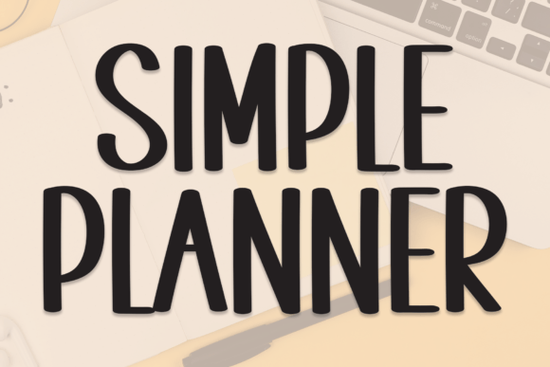
If you've been looking for a Simple Planner Font that handles a wide range of design projects without feeling stiff or overly decorative, this handwritten typeface from Creative Fabrica is worth a close look. It has a relaxed, casual feel that works naturally in planners, journals, social media posts, and print-on-demand products.
As someone who tests and uses handwritten fonts regularly, I've found that the most useful ones aren't always the boldest or most detailed. A clean, easygoing script that reads well at different sizes often ends up being the font you reach for most. Simple Planner fits that role nicely.
What Kind of Font Is Simple Planner Exactly?
Simple Planner is a casual handwritten font with loose, natural letterforms. It doesn't try to mimic perfect calligraphy or look overly polished. Instead, it has a friendly, approachable quality like something you'd jot down in a notebook. This makes it a practical choice for many types of creative work, including:
- Weekly and monthly planner layouts
- Handmade greeting cards and invitations
- Stickers, labels, and die-cut designs
- Social media quote graphics and Instagram stories
- T-shirt, mug, and tote bag designs for print-on-demand
- Blog headers and Pinterest pin templates
Because it's so versatile, you can use it across multiple projects without it feeling repetitive or out of place.
Who Should Use This Font?
It's also a solid pick for creative hobbyists who make planner inserts, party decorations, or personal projects. You don't need advanced design skills to make it look good the font does the heavy lifting.
How Does It Compare to Other Handwritten Fonts?
Simple Planner sits in a comfortable middle ground casual enough to feel personal, clean enough to stay readable at small sizes. That balance is more useful than it might sound.
What Projects Work Best with Simple Planner?
Here are some specific ideas where this font really fits:
- Planner pages and inserts It's designed for this. Use it for section headers, day labels, and decorative quotes inside your layouts.
- Social media content Instagram posts, story templates, and Pinterest graphics all benefit from a relaxed handwritten style that feels authentic.
- Print-on-demand products Casual typography on mugs, tote bags, and t-shirts tends to connect with buyers looking for something relatable and warm.
- Greeting cards and invitations Birthday cards, thank-you notes, and baby shower invites look hand-touched and thoughtful.
- Small business materials Price tags, packaging inserts, loyalty cards, and menu boards for brands with a friendly personality.
What Fonts Pair Well with Simple Planner?
A handwritten font looks its best when paired with something clean and structured underneath. Try combining Simple Planner with a simple sans-serif for body text. This creates visual contrast without clutter.
A pairing approach that works:
- Headlines and accents: Simple Planner
- Body text and descriptions: A clean sans-serif like Open Sans, Lato, or Montserrat
- Dates, prices, and small details: A light serif or monospace font
This keeps your designs balanced and easy to read, whether someone is viewing them on a screen or holding a printed product.
Is Simple Planner Worth Downloading?
If you create planner layouts, social media graphics, or print-on-demand designs on a regular basis, then yes. It's not meant to be a dramatic showpiece it's a reliable workhorse font that earns its spot in your collection through everyday use.
Spending ten minutes testing a font in your actual workflow tells you more than any product preview ever will. Give it a try in one small project first if it feels right, it'll quickly become one you use often.